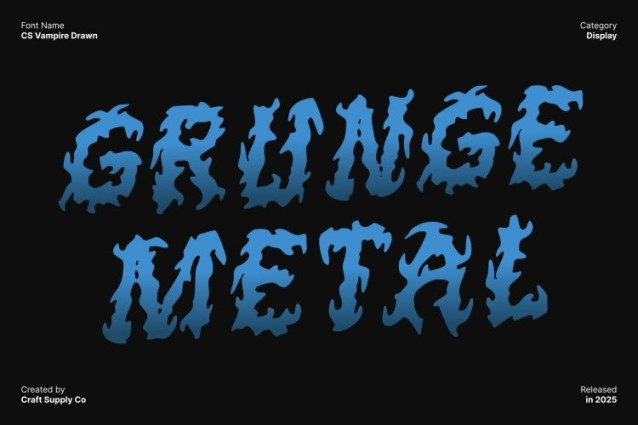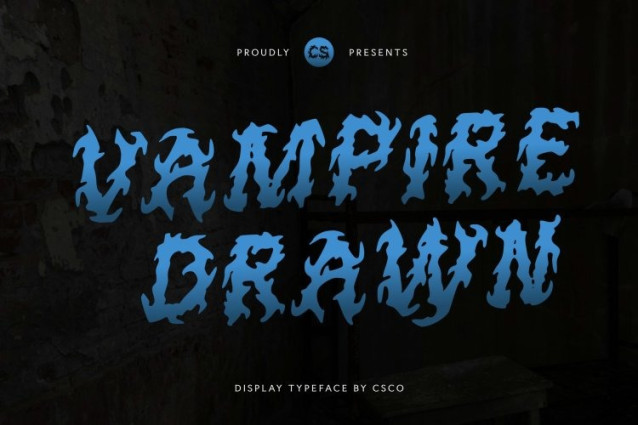
CS Vampire Drawn Font
CS Vampire Drawn Font This is a black metal display font crafted to embody raw aggression and uncompromising darkness. Jagged spikes, razor-sharp edges, and violently fractured strokes define every letter, creating a hostile and menacing visual presence. The structure feels intentionally unstable and chaotic, echoing the destructive sound and ideology of extreme music.
Hand-Drawn Chaos with Ritualistic Texture
The drawn effect intensifies the font’s savage personality by introducing rough, handcrafted textures that feel scratched, carved, and summoned rather than designed. Irregular strokes and organic distortion add a ritualistic, almost occult quality, reinforcing the raw underground spirit of black metal culture.
Designed to Dominate in High-Impact Displays
This is built for maximum visual impact in display-heavy applications. It thrives in band logos, album covers, posters, merchandise, festival visuals, and underground branding where subtlety has no place. The aggressive forms command attention instantly, ensuring your message is felt as much as it is seen, especially at large scales where every spike and fracture becomes even more intense.
A Typeface That Channels the Spirit of Extreme Music
This font captures the essence of extreme music dark, chaotic, emotional, and defiant. This is ideal for black metal, death metal, and any project that embraces raw expression and darkness. It transforms typography into a powerful symbol of rebellion, intensity, and underground identity, delivering a visual voice that is fearless, brutal, and unforgettable.